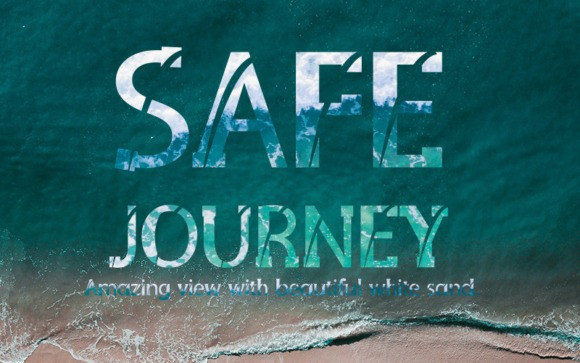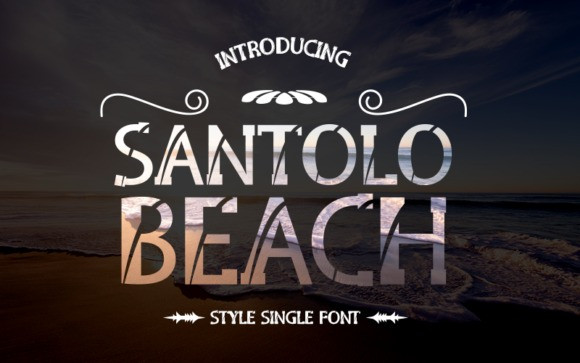
Santolo Beach Font
Santolo Beach Display Font is an elegant and bold display font, carefully handcrafted to become a true favorite. This font will look outstanding in any context, whether it’s being used on busy backgrounds or as a standalone headline!